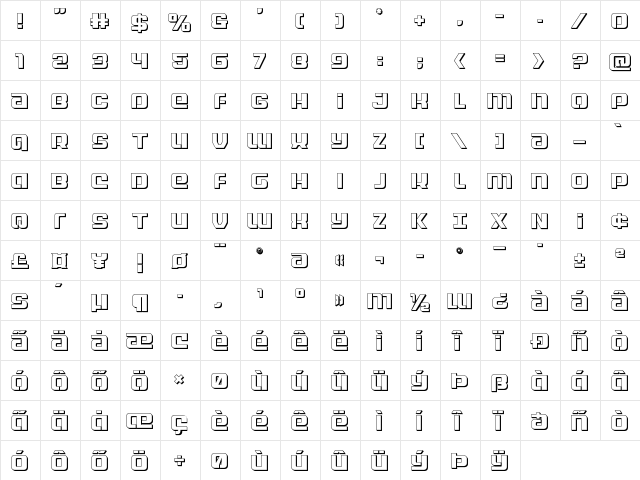
Globe Trekker 3D Regular Font Preview
Globe Trekker 3D Regular
Globe Trekker 3D Regular Font Details
Design Context for Globe Trekker 3D Typeface
Globe Trekker 3D is a composed and adaptable typeface that performs quietly and consistently across a wide range of design contexts.